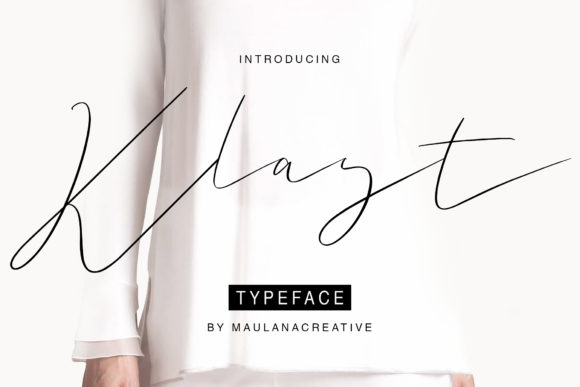
**Introducing Klast Font - The Epitome of Bold and Captivating Headings**
Unleash the power of Klast Font, a captivating script font that will transform your designs into masterpieces. Its unique blend of smooth curves and sharp edges creates a striking visual impact that commands attention. Crafted by the skilled hands of Maulana Creative, Klast Font is a versatile tool that will elevate your creations to new heights.
**A Symphony of Style and Versatility**
Klast Font is not just another font; it's an expression of creativity and style. Whether you're crafting a bold website header, a captivating social media post, or an unforgettable logo, Klast Font will deliver unparalleled impact. Its flowing script adds a touch of elegance to any design, while its sharp edges provide a modern and edgy feel.
**The Perfect Choice for Bold Headings**
As its name suggests, Klast Font is the ultimate weapon for creating bold and unforgettable headings. Its large, sweeping letters draw the eye instantly, commanding attention and conveying your message with clarity and impact. Whether you're showcasing a product, announcing an event, or simply sharing a powerful statement, Klast Font will ensure that your words leave a lasting impression.
**A Versatile Tool for Endless Possibilities**
Beyond bold headings, Klast Font's versatility extends to a wide range of design applications. Use it for impactful quotes, stylish invitations, or even as a decorative element in your graphic designs. Its unique character and endless possibilities will empower you to express your creativity in countless ways.
**A Font That Sparks Emotion**
Klast Font is not just a collection of letters; it's an emotional powerhouse. Its flowing curves evoke a sense of elegance and grace, while its sharp edges add a touch of intrigue and excitement. Together, they create a font that speaks to the heart and leaves a lasting impression.
**Elevate Your Designs to New Heights**
With Klast Font, the possibilities are endless. Its bold and captivating style will transform your designs, giving them a professional and polished look that will make you stand out from the crowd. Whether you're a seasoned designer or just starting your creative journey, Klast Font is the perfect tool to elevate your work and captivate your audience.